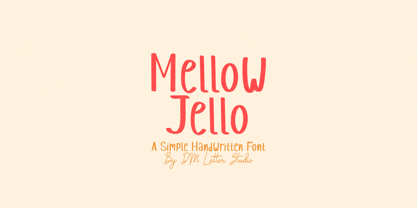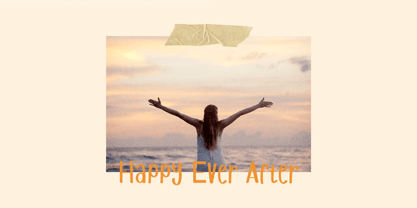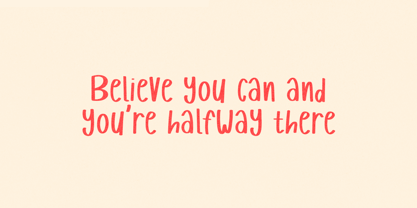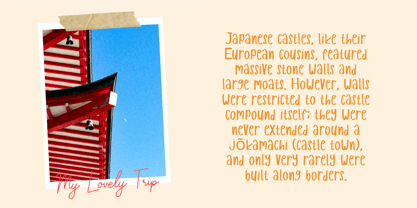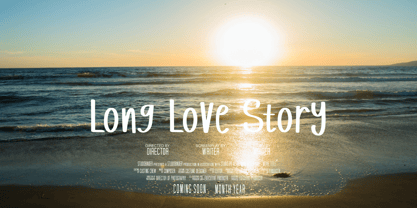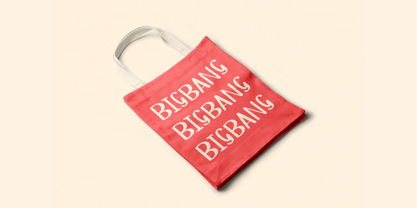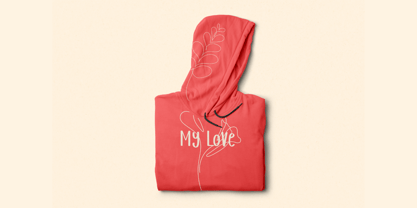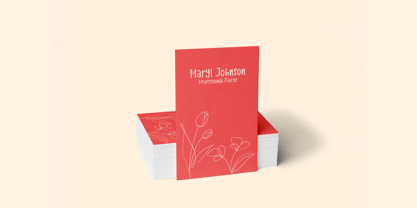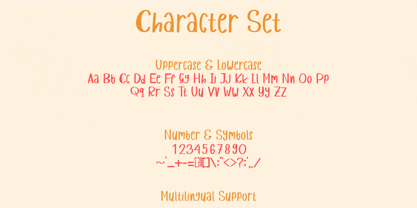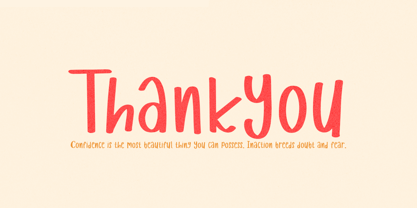
Mellow Jello
La familia tipográfica Mellow Jello fue diseñada por Dimas Prasetyo y publicada por DM Studio. Mellow Jello contiene 1 estilos.
The Mellow Jello Font is a soft, bouncy, and playful typeface that radiates fun and friendliness. With its rounded edges and jelly-like curves, this font is perfect for kid-themed projects, fun logos, party invitations, cartoons, and cheerful branding. Whether you're working on digital or print designs, Mellow Jello adds a bubbly and joyful personality that’s impossible to ignore.
Features:
• Playful & Rounded Design: Perfectly captures a squishy, jiggly, mellow vibe.
• Versatile Use: Great for children's books, toy packaging, social media posts, fun branding, and more.
• Easy to Read: Bold but friendly letterforms that remain legible at any size.
• Full Character Set: Includes uppercase, lowercase, numerals, punctuation, and symbols.